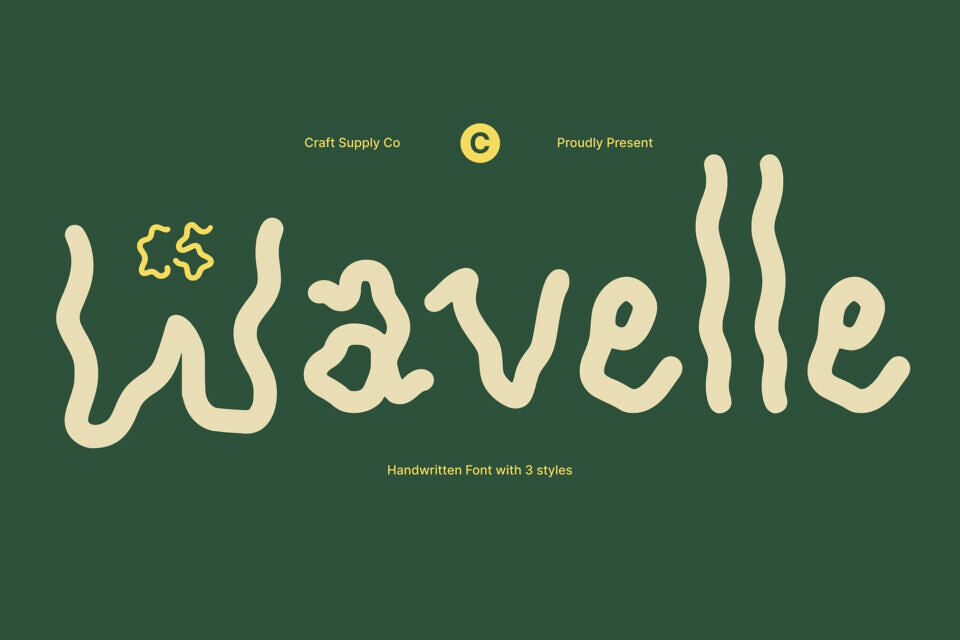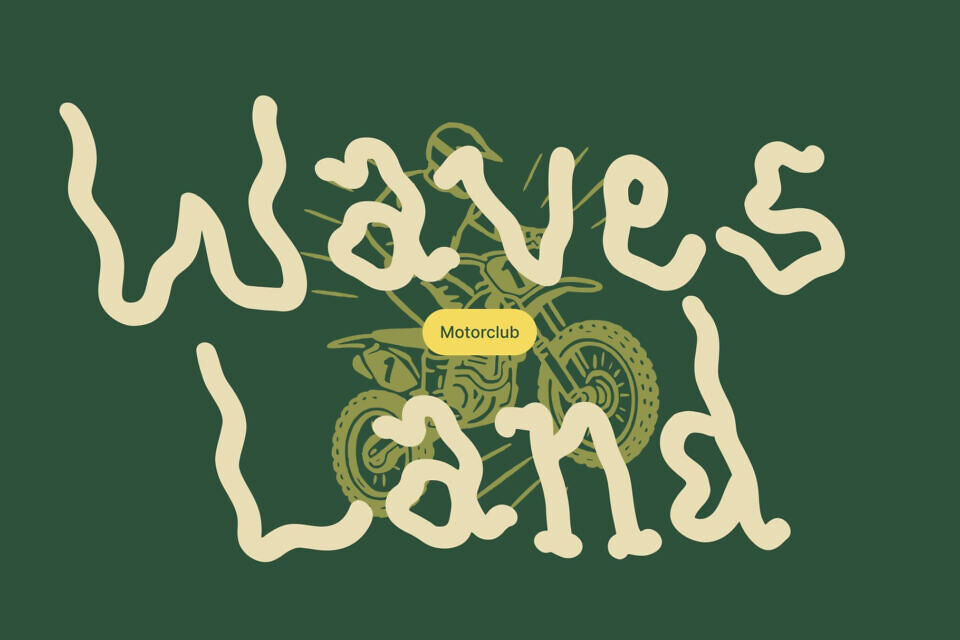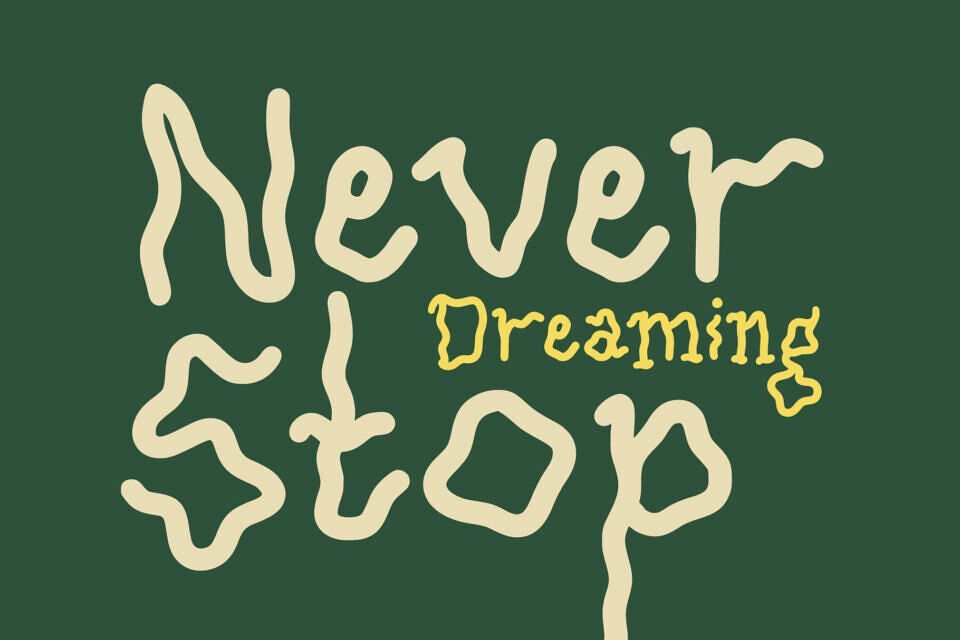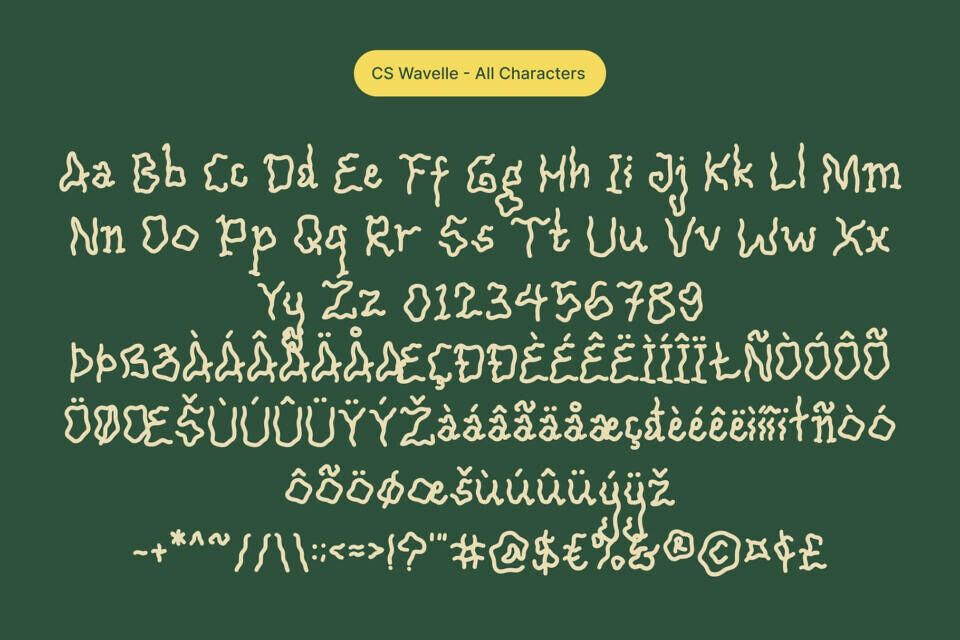
Wavelle is a display font that flows with rhythm and creativity, blending a trippy aesthetic with smooth, liquid curves. Designed to capture the feeling of motion and spontaneity, this font delivers a sense of freedom and visual energy that instantly grabs attention. Its organic forms and flowing shapes make this font a perfect choice for projects that dare to stand out.
The natural handwritten quality of this font adds warmth and personality to its trippy, experimental style. Each curve feels spontaneous yet intentional, evoking a sense of creative chaos that’s both bold and inviting. Its fluid texture and playful rhythm make it ideal for expressive, artistic, and unconventional designs.
This font shines in vibrant creative spaces music branding, funky posters, album artwork, and editorial layouts that celebrate individuality. Its psychedelic influence and lively flow turn words into visual art, creating an engaging experience that feels alive and full of movement.